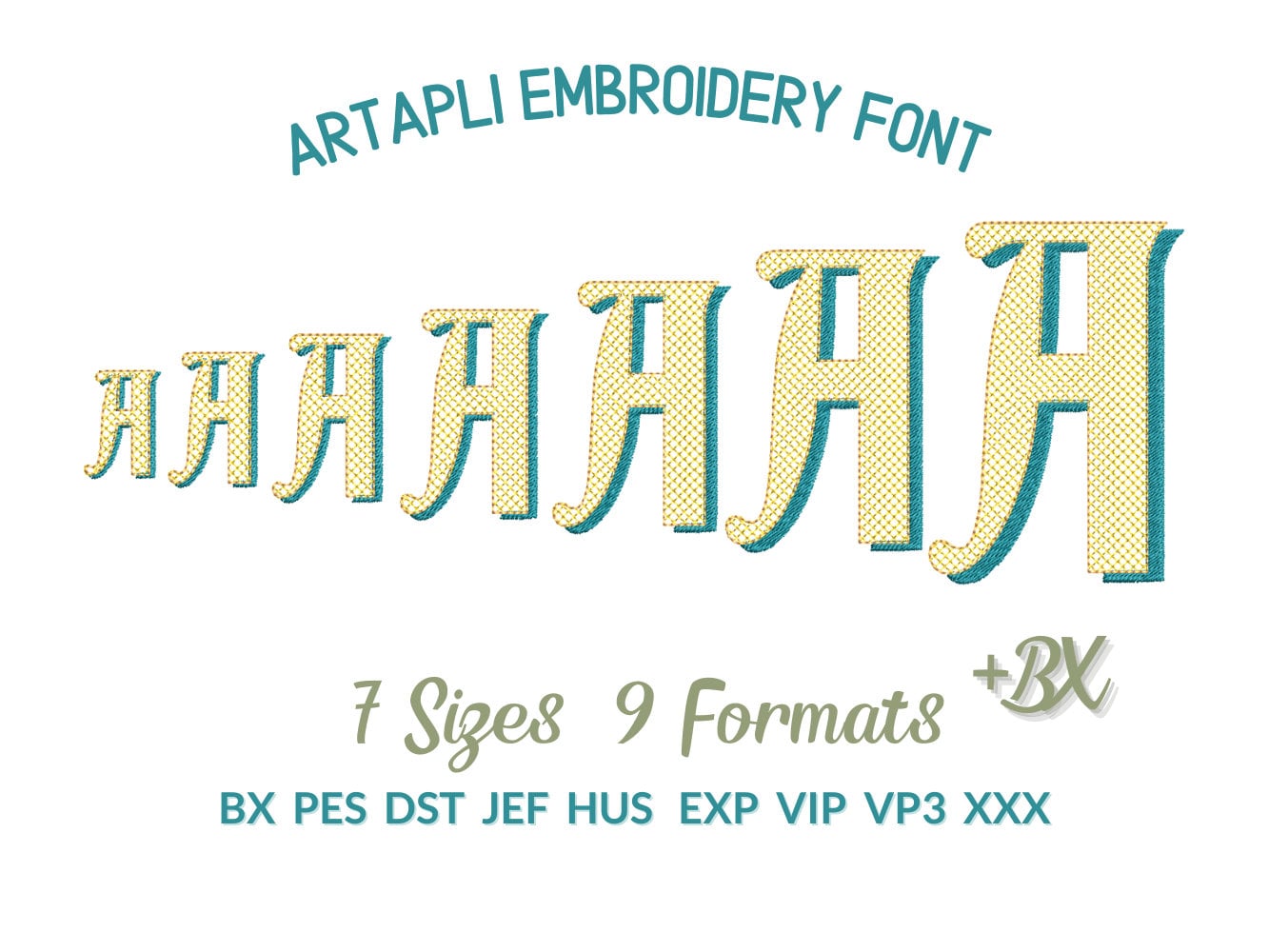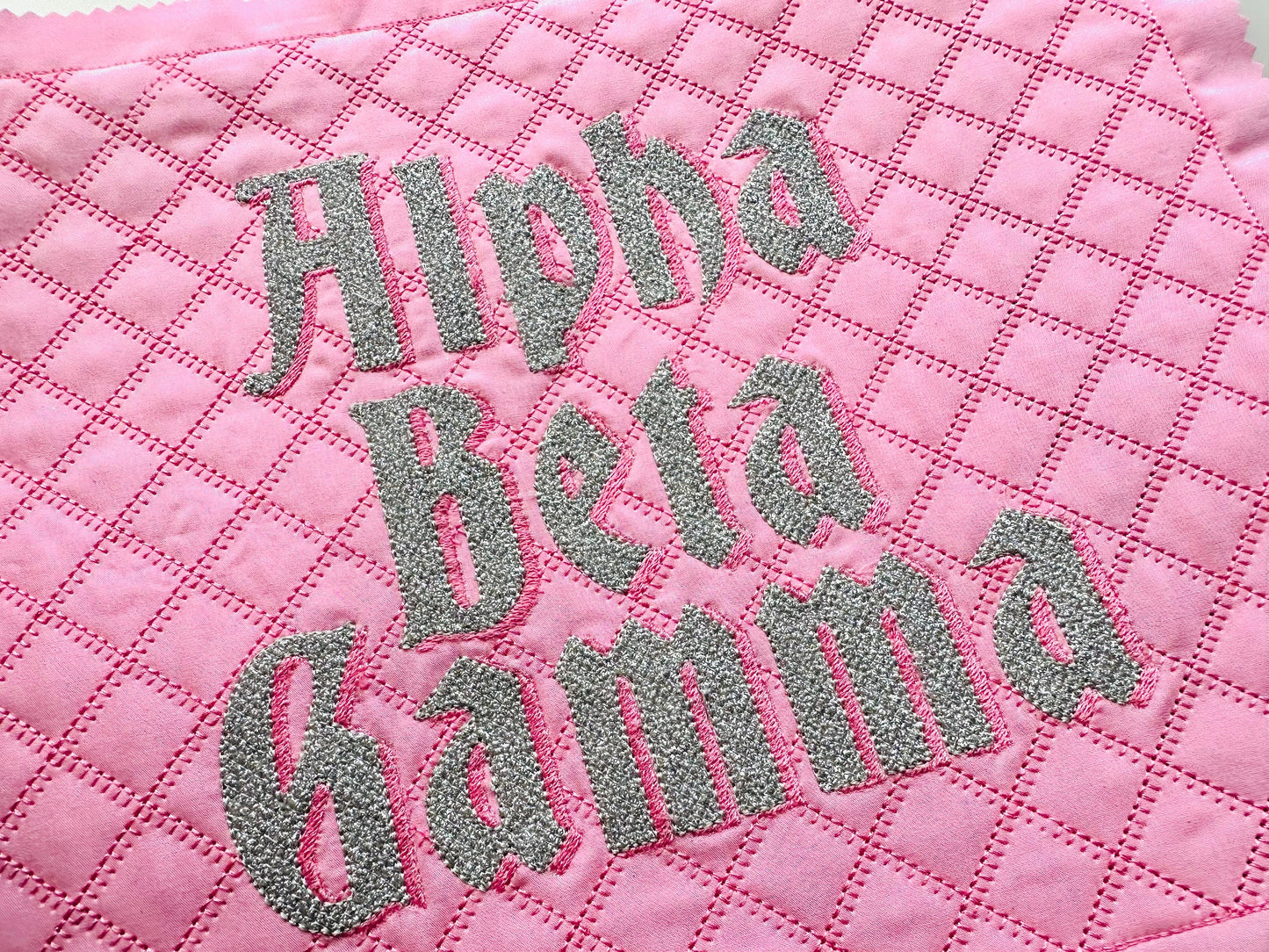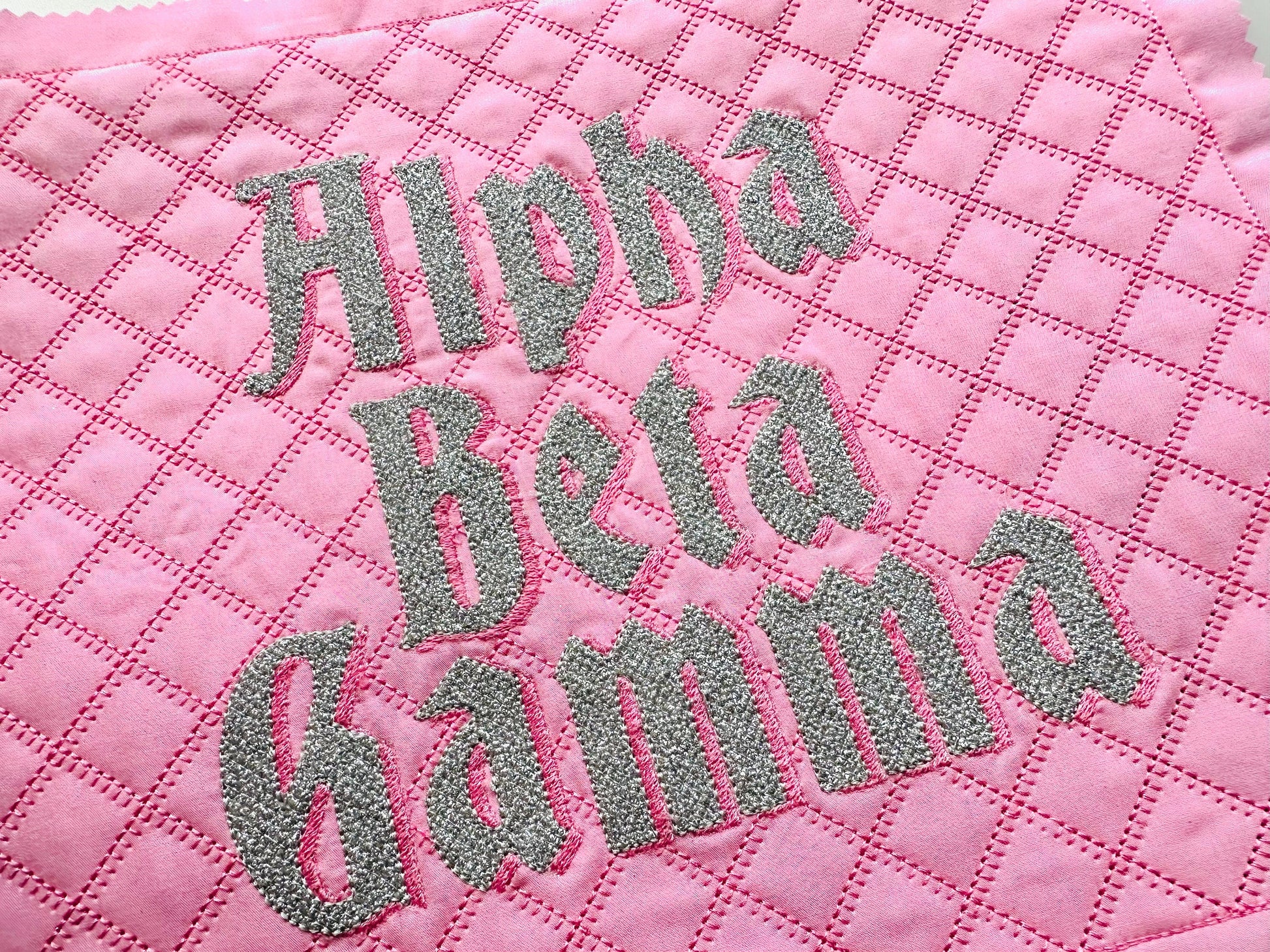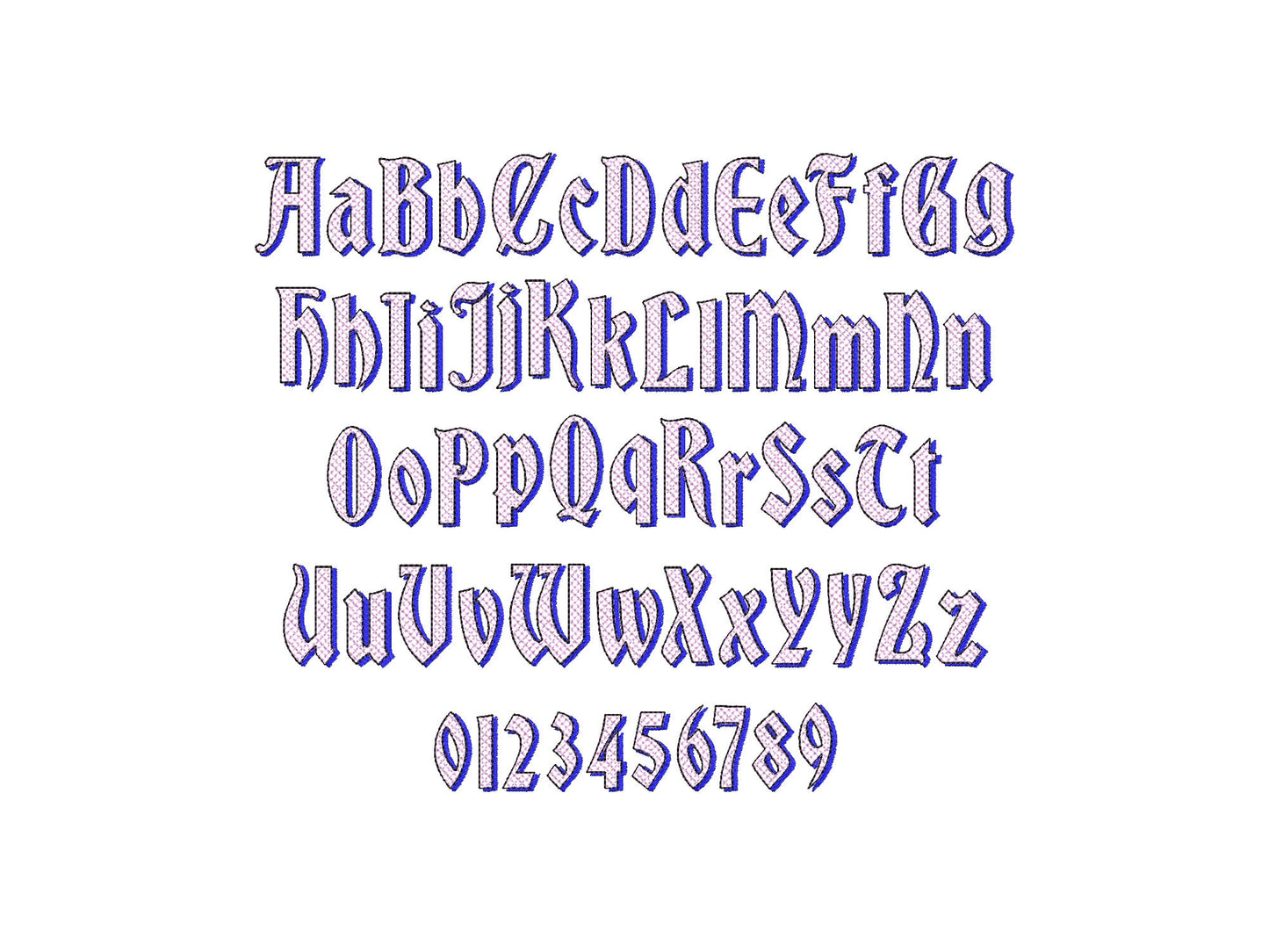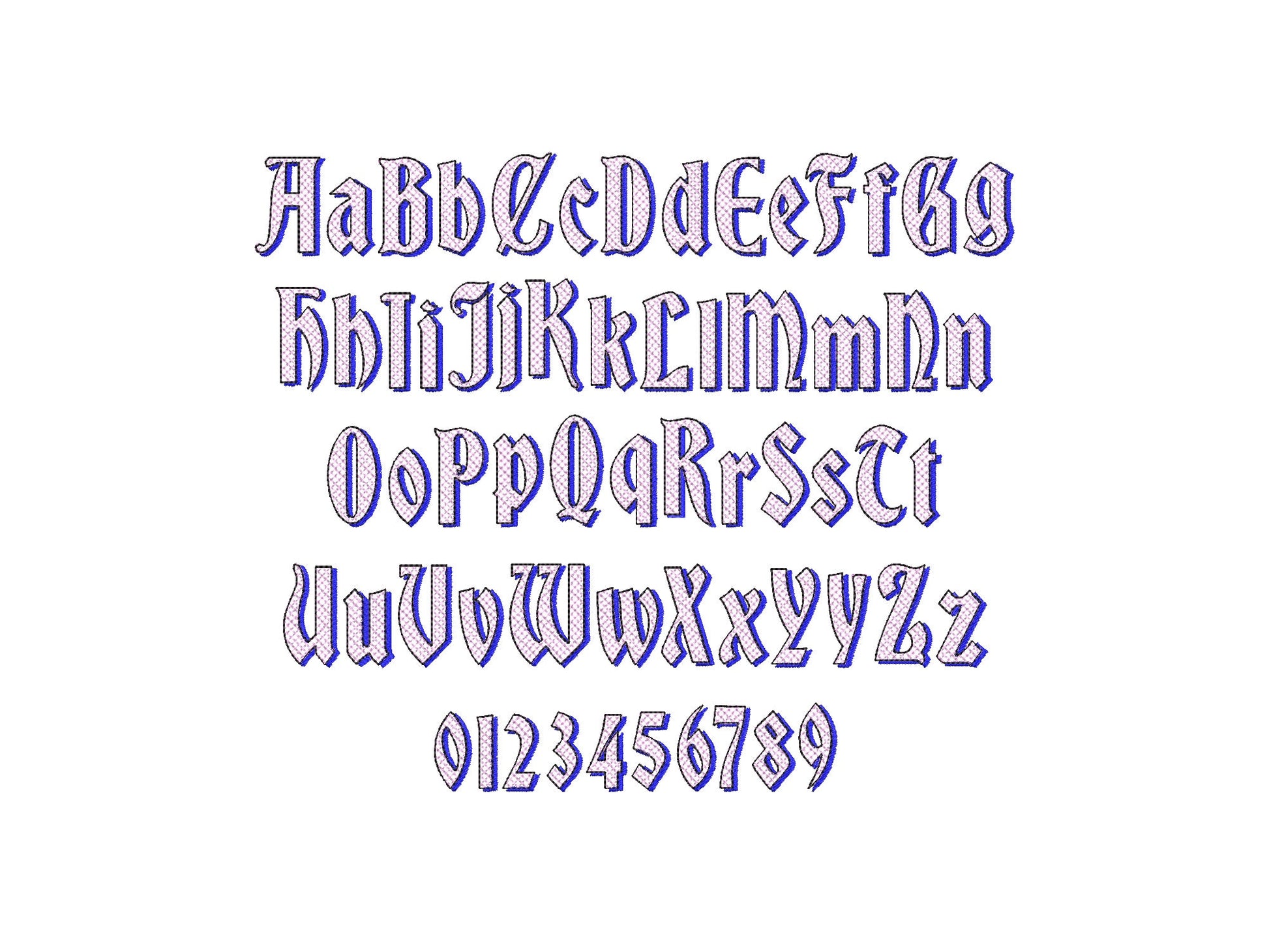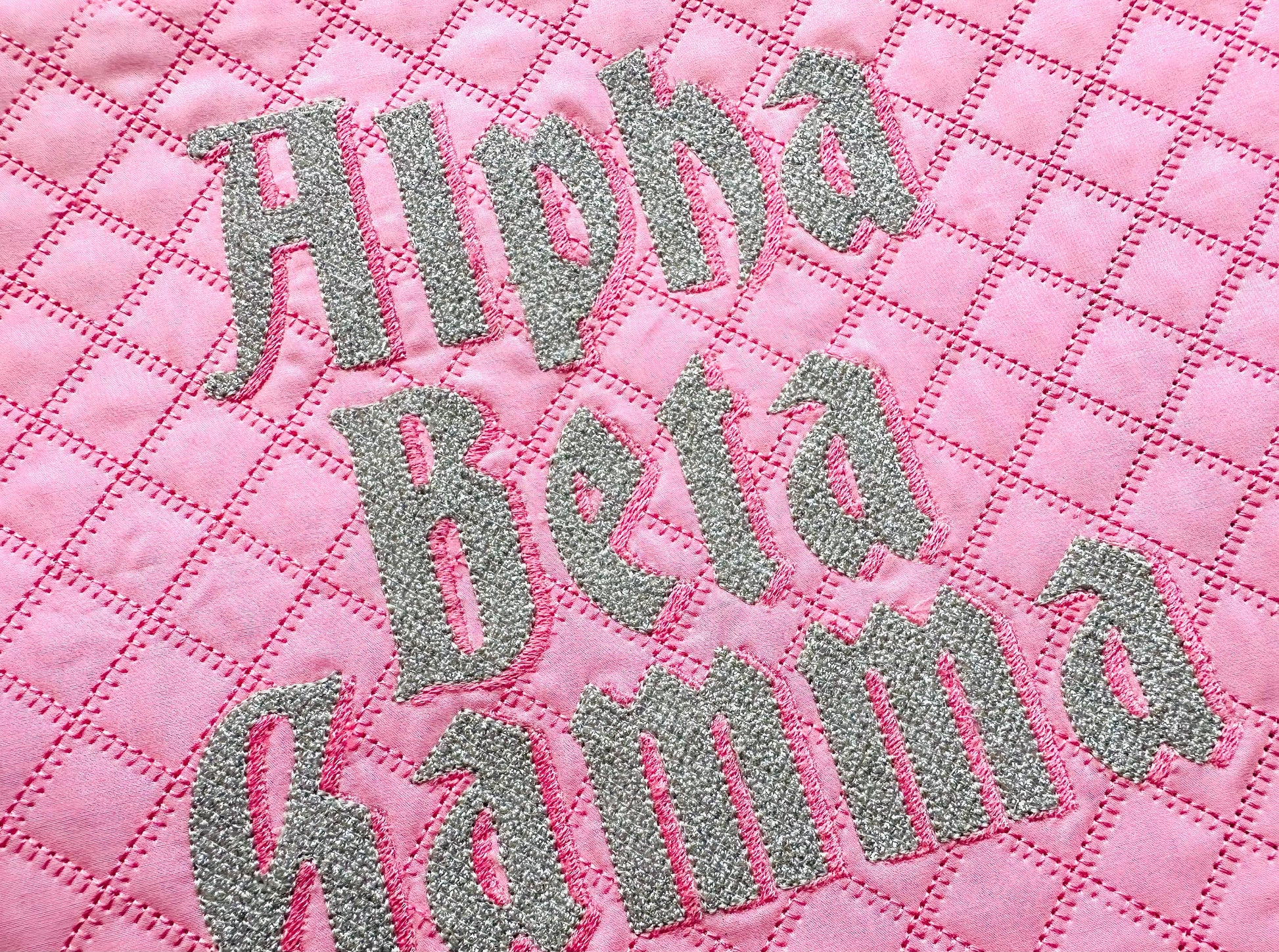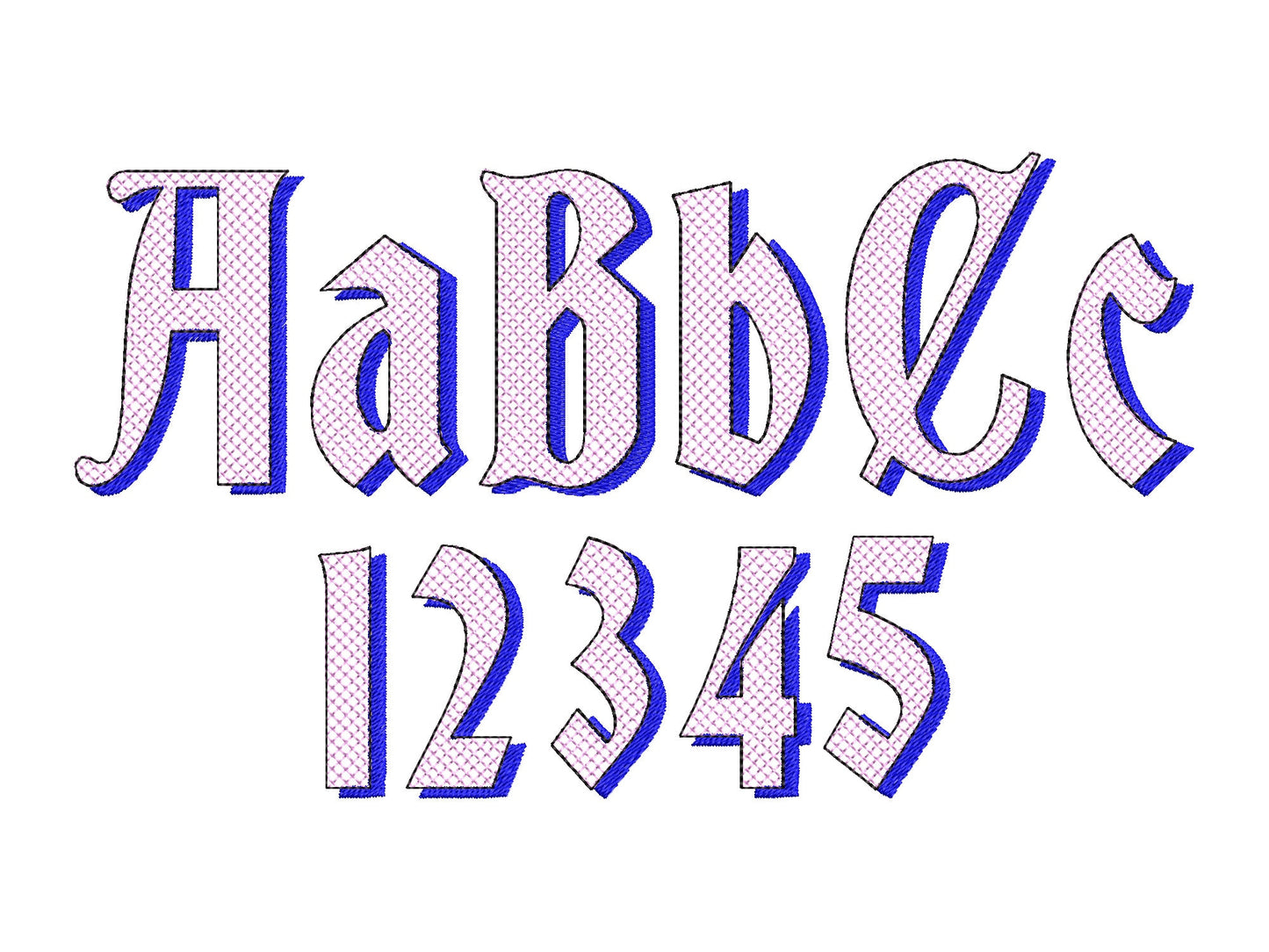
Glitter HTV Shadow Old Style Font
Or click to open the linkAn old style shadow font made for glitter heat transfer vinyl. Sparkly for names and monograms on shirts, bags and party outfits.
Uppercase and lowercase letters and numbers 0 to 9 in seven sizes: 1.1, 1.4, 1.8, 2.2, 2.7, 3.2 and 3.9 inches.
- Glitter vinyl old style shadow font
- Uppercase and lowercase letters, numbers 0-9
- 7 sizes, 1.1 to 3.9 in